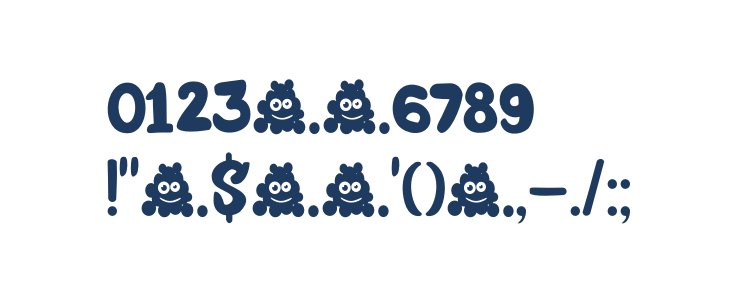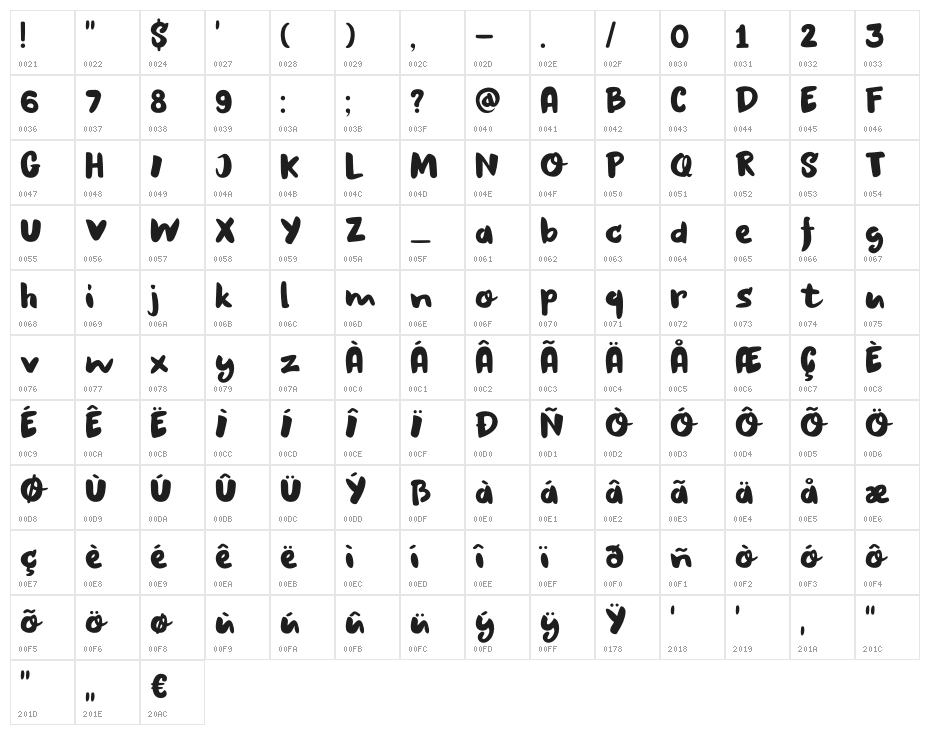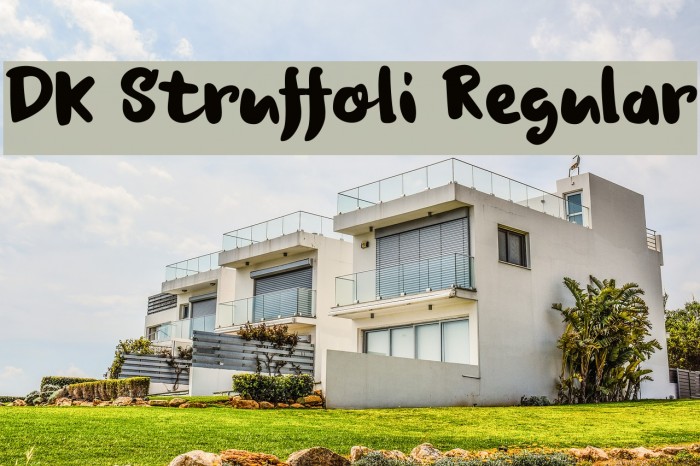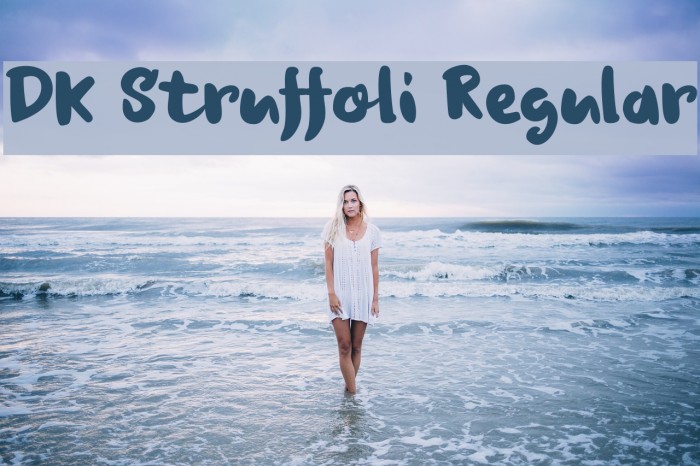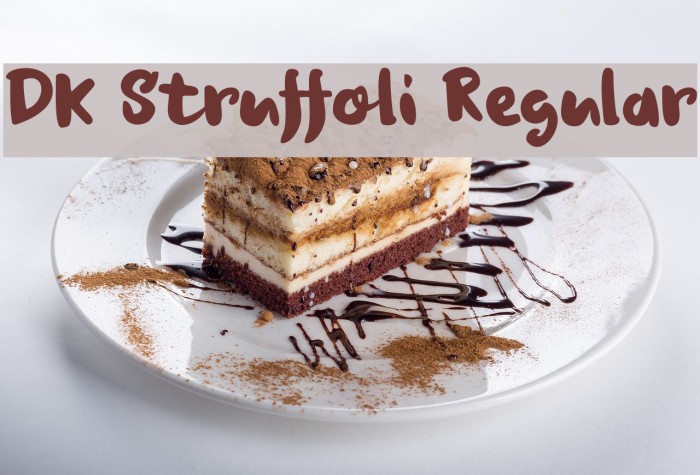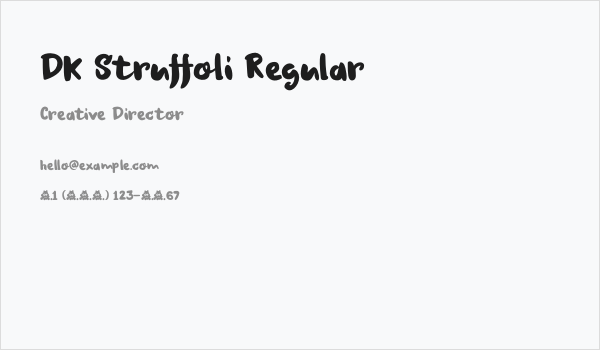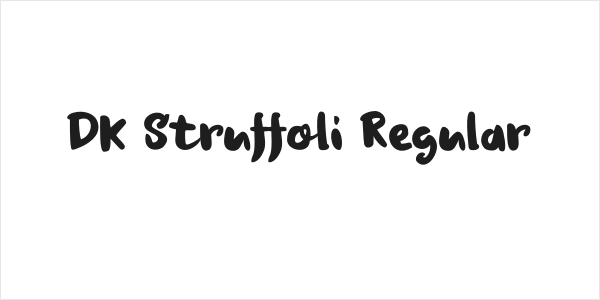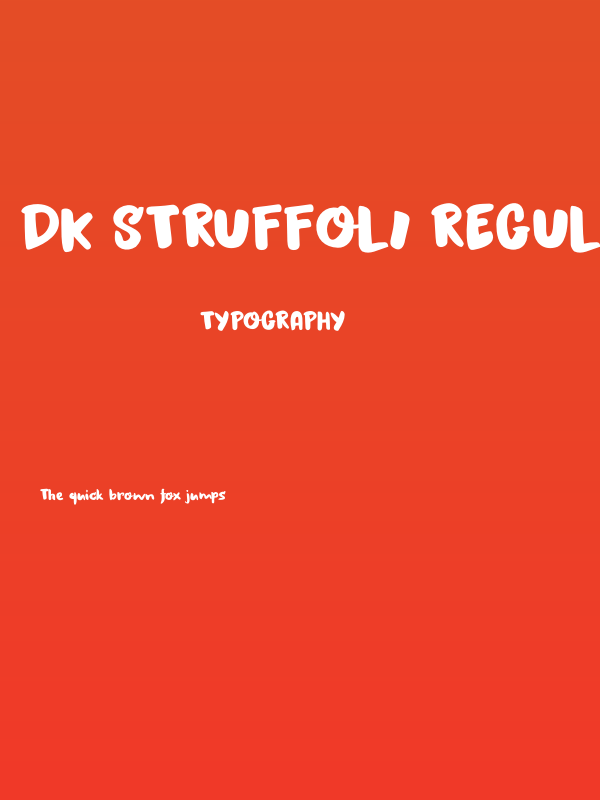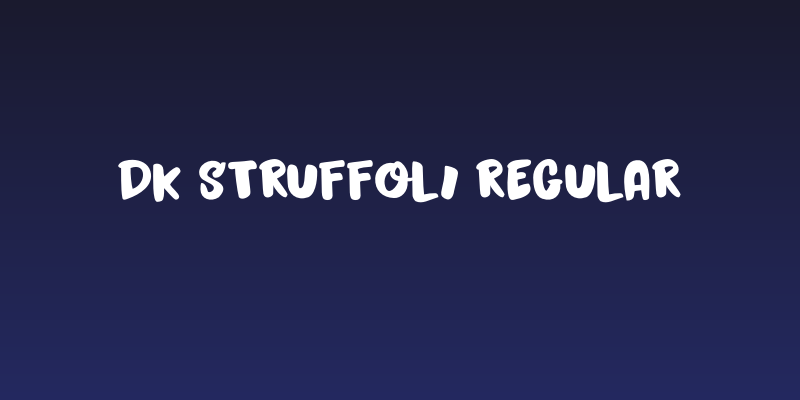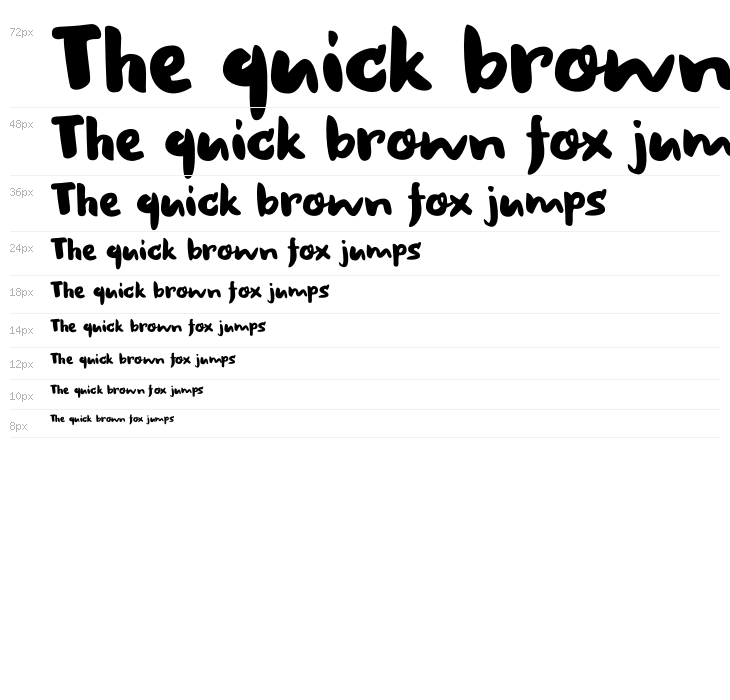
DK Struffoli Regular Font
DK Struffoli Regular Description
This playful and bold font features rounded, bubbly characters that exude a sense of fun and whimsy. The uppercase and lowercase letters are characterized by their thick strokes and smooth curves, giving them a friendly and approachable appearance. The numbers and special characters maintain this playful style, with consistent weight and rounded edges. The font's unique design includes quirky elements, such as the distinctive treatment of certain characters, adding to its charm. Overall, this font is well-suited for projects that require a lighthearted and engaging aesthetic.